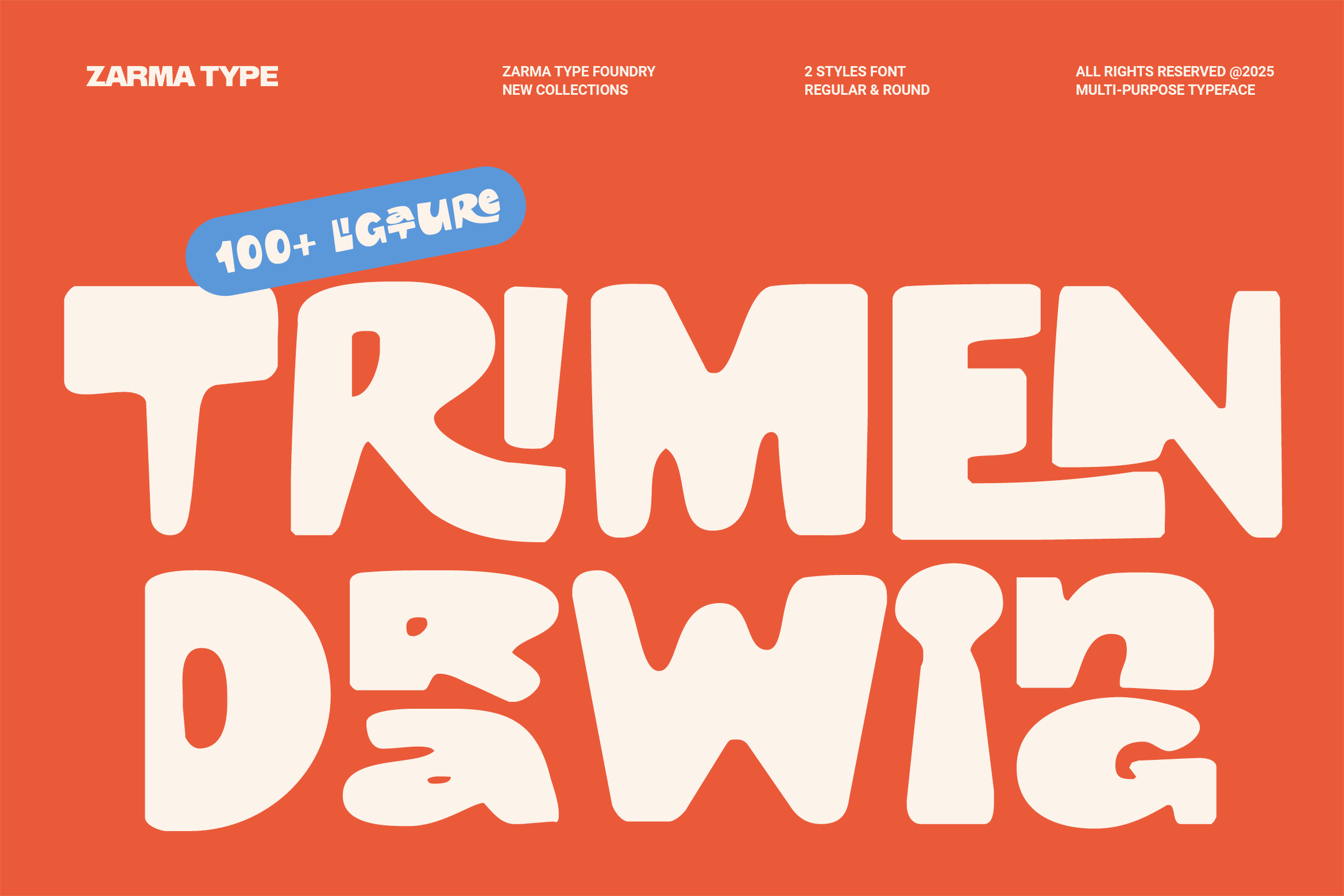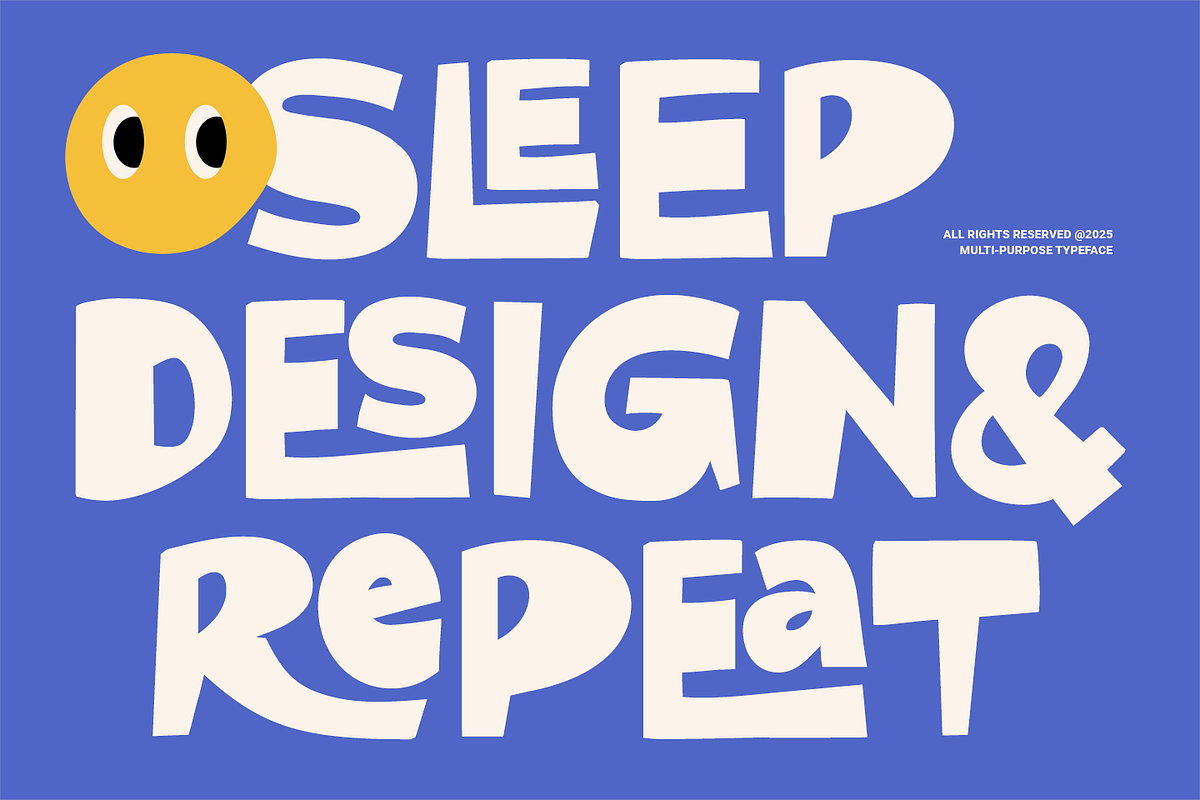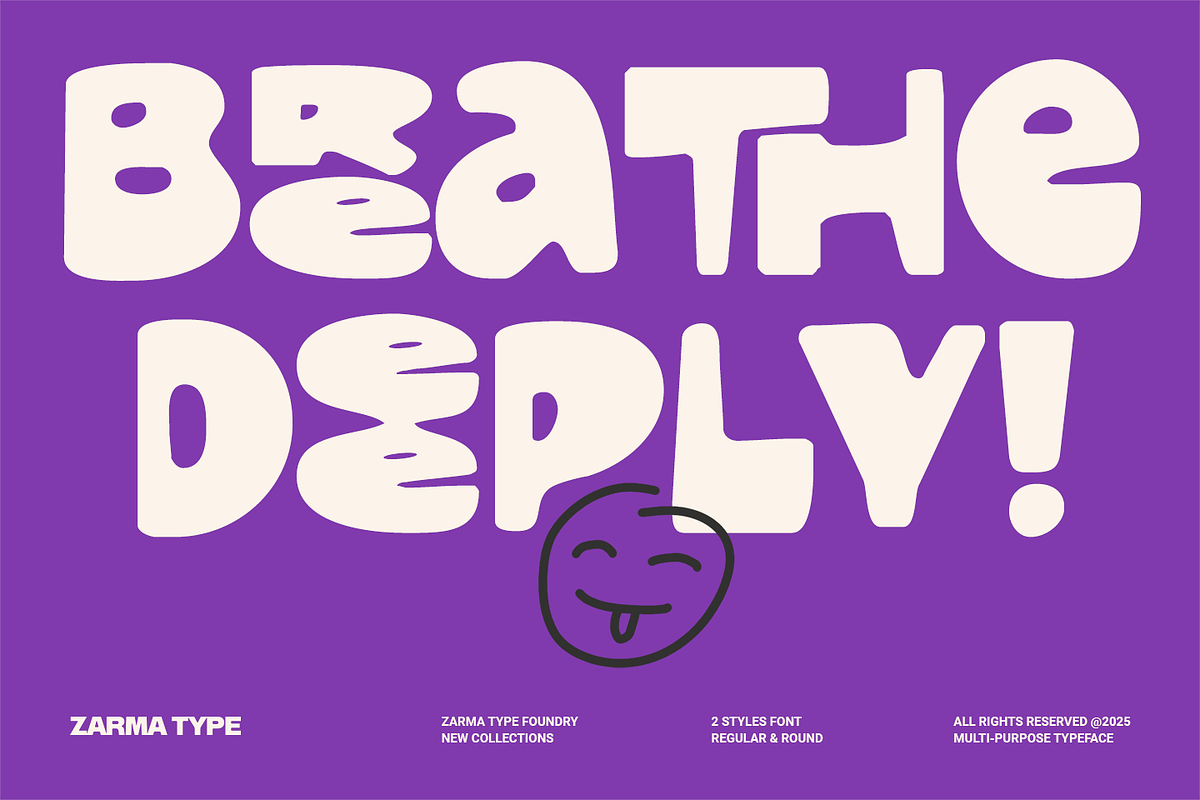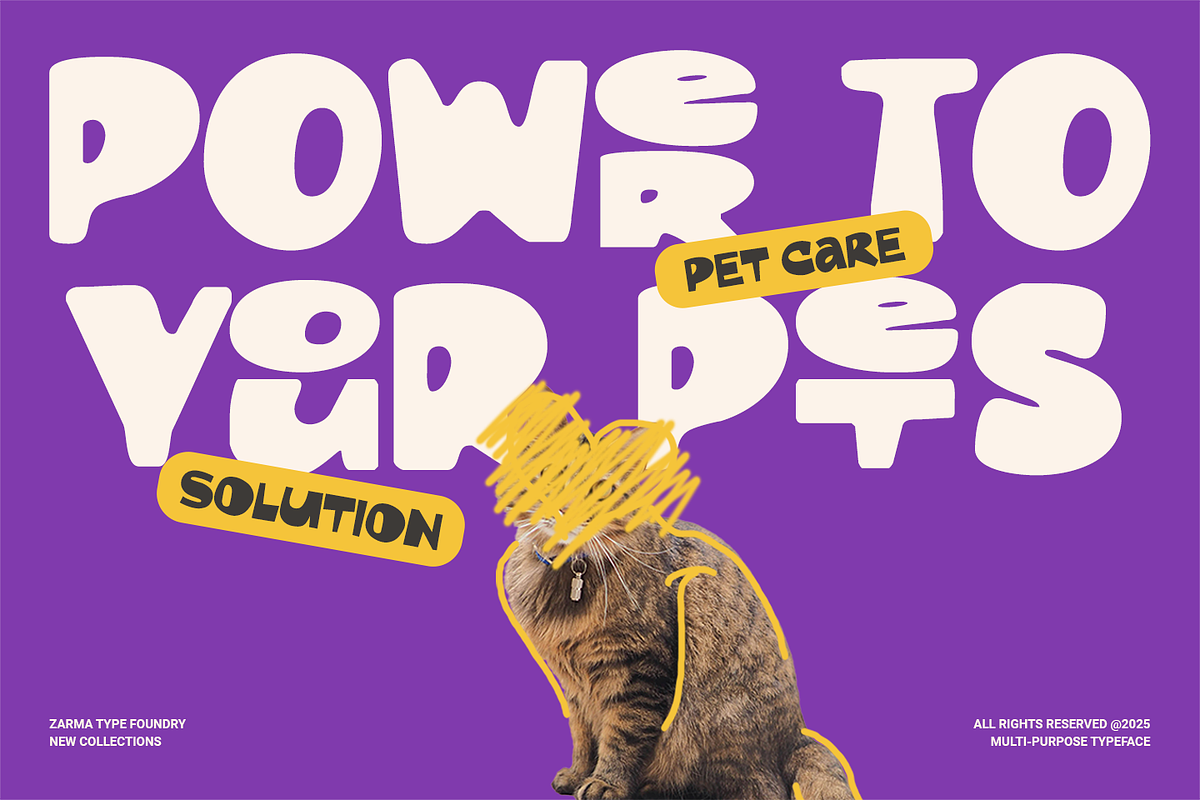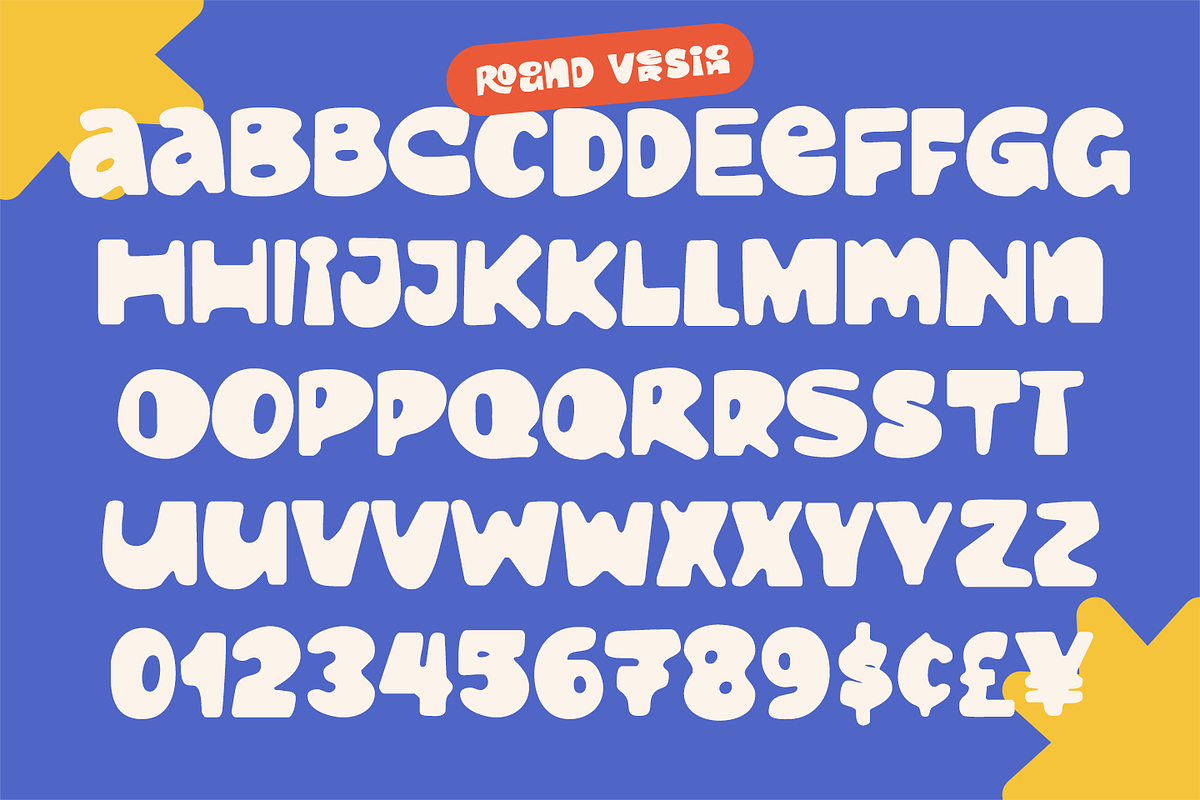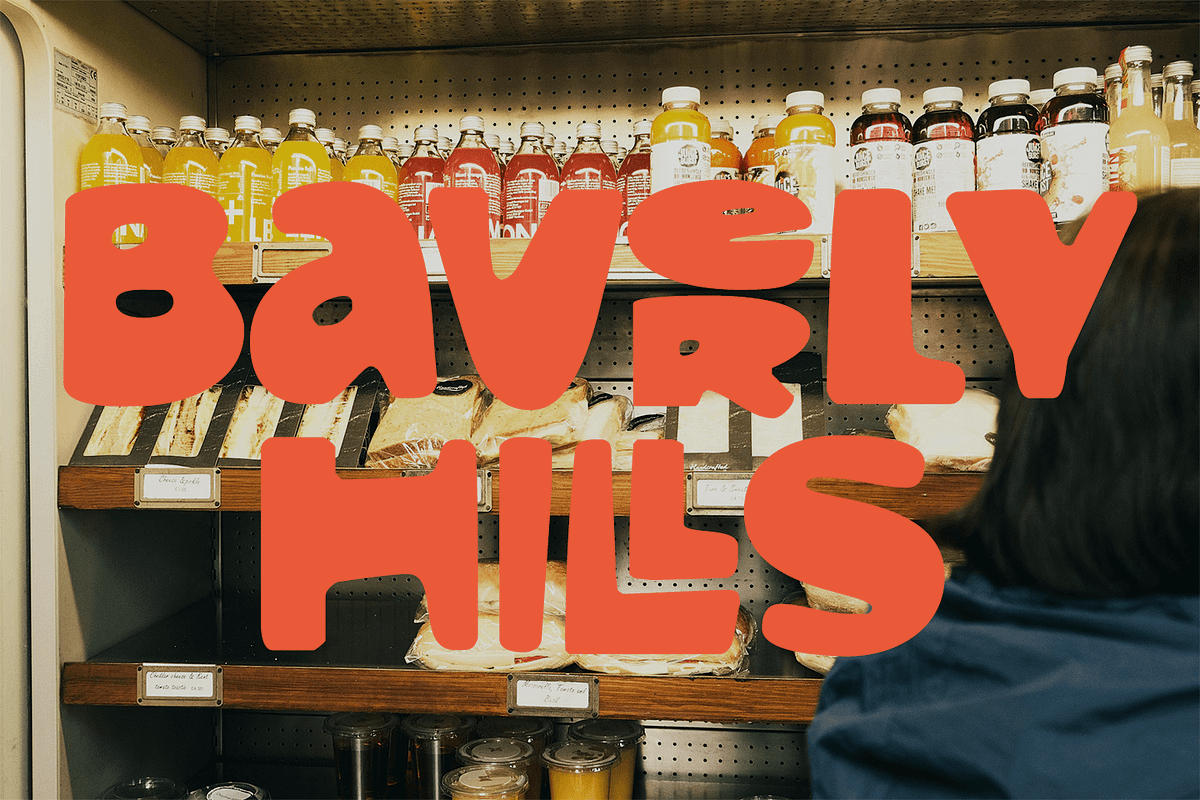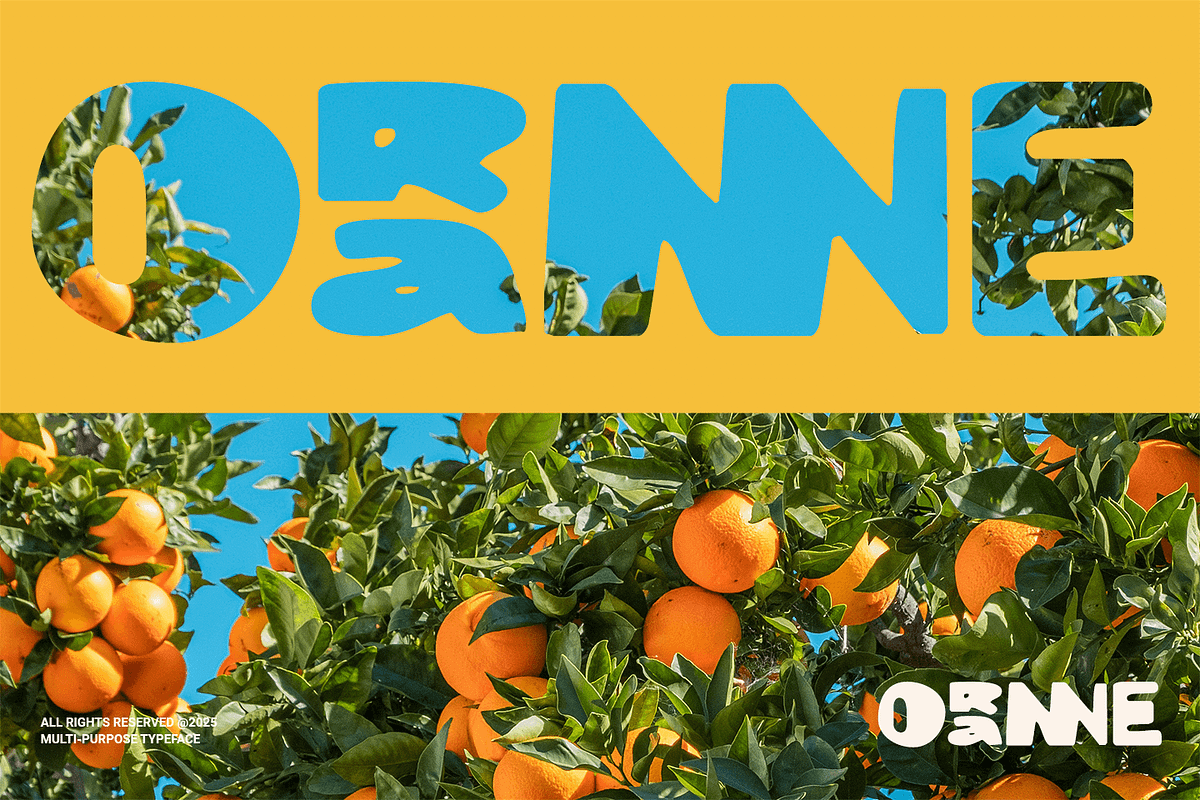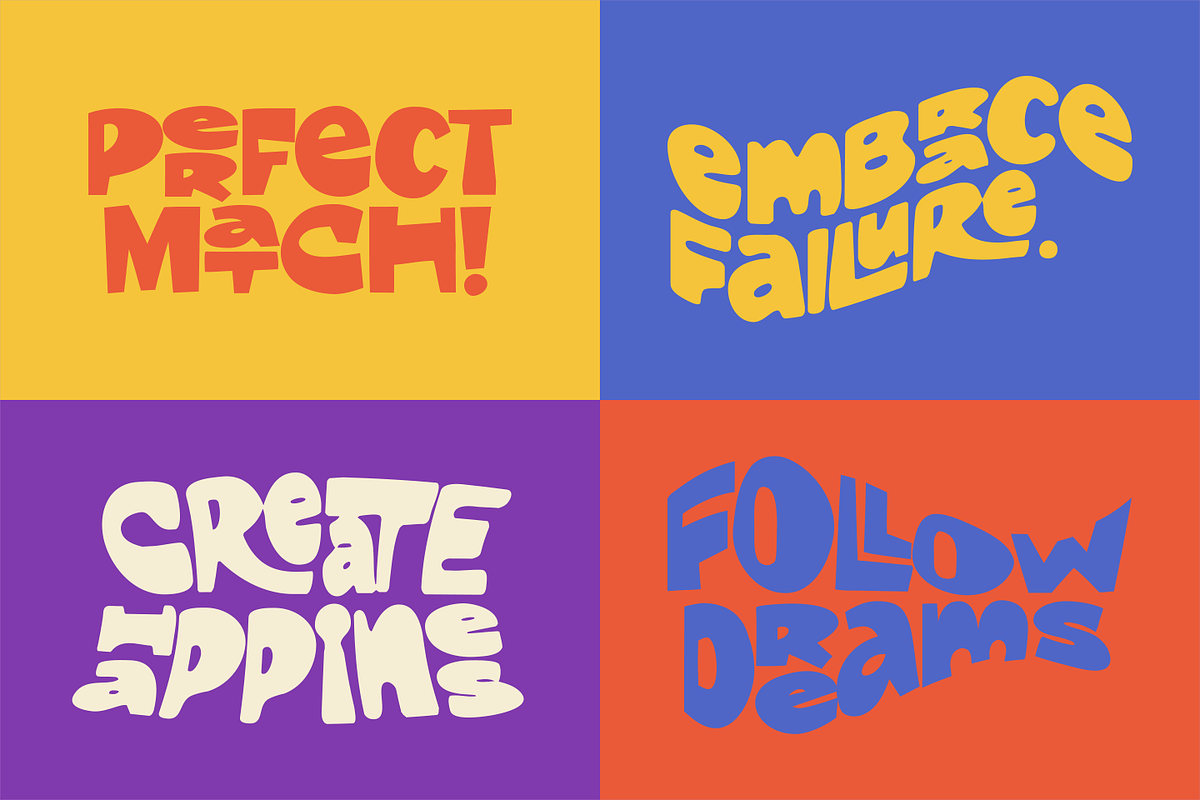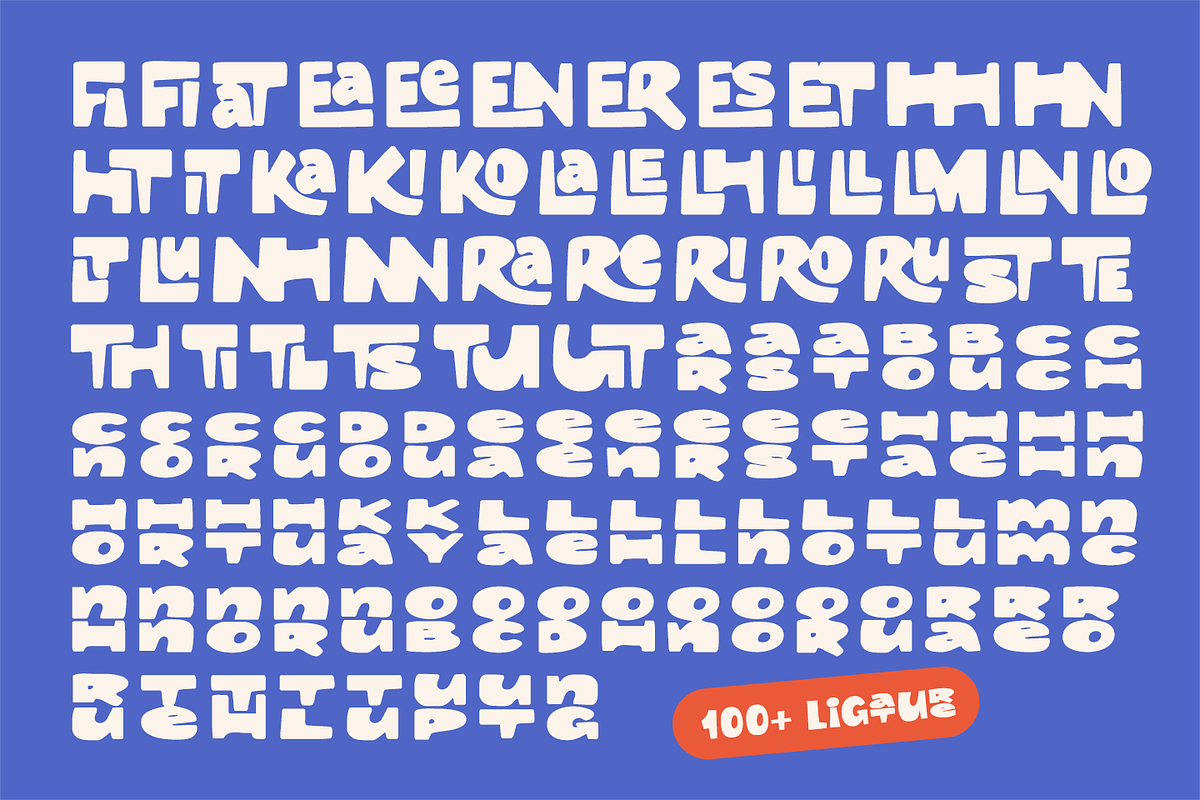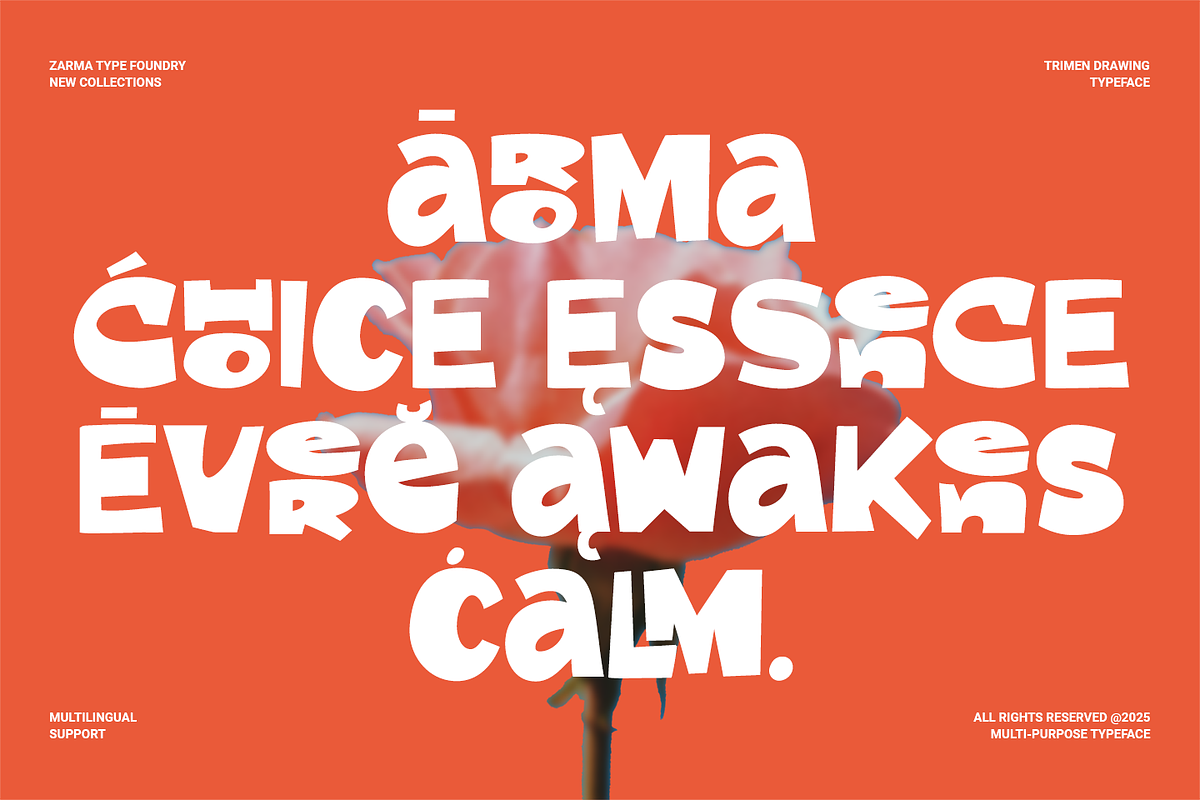
Trimen Drawing - Modern Bold Font
Trimen Drawing is a modern bold font that screams personality in every curve, built to energize your visual identity with a handdrawn edge. Its exaggerated strokes and chunky forms carry a sense of raw creativity, perfect for brands that want to stand out in a noisy digital world. Whether you're designing food packaging, editorial headlines, or playful streetwear branding, this font commands attention with its expressive style. It blends grunge imperfection and urban playfulness, creating a loud yet lovable aesthetic that’s both striking and memorable.
Designed for bold experimentation, Trimen Drawing thrives in settings where fun meets function—think pizza boxes, juice labels, pop-up posters, or even quirky pet care branding. The letterforms are hand-rendered with a distorted charm, bringing in an organic, rebellious flavor that speaks to youthful audiences. Every glyph feels like it was drawn with purpose, yet intentionally imperfect—just like your brand's authentic voice.
Perfect for: Food packaging, brand identity, handdrawn branding, modern apparel, editorial titles, streetwear logos, youth campaigns, social media content, urban signage, quirky merch, bold product packaging.
- 2 Styles (Regular & Round)
- Uppercase and Lowercase Character Set
- Numbers and Punctuation
- Standard & 100+ Discretionary Ligatures
Add Trimen Drawing to your collection and unleash your inner rebel. Perfect for designers who aren't afraid to go loud, raw, and proudly different—this font lets your brand speak in its boldest tone yet.